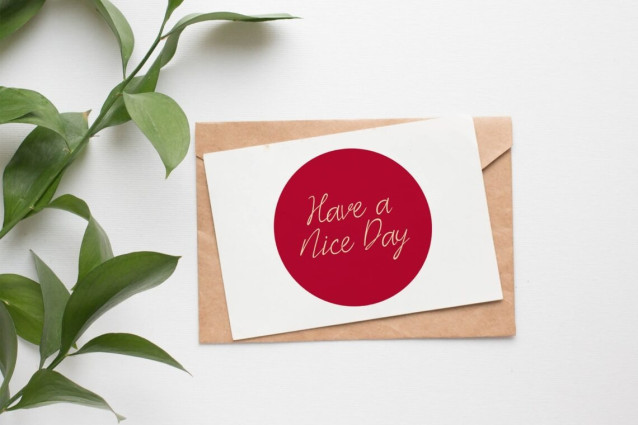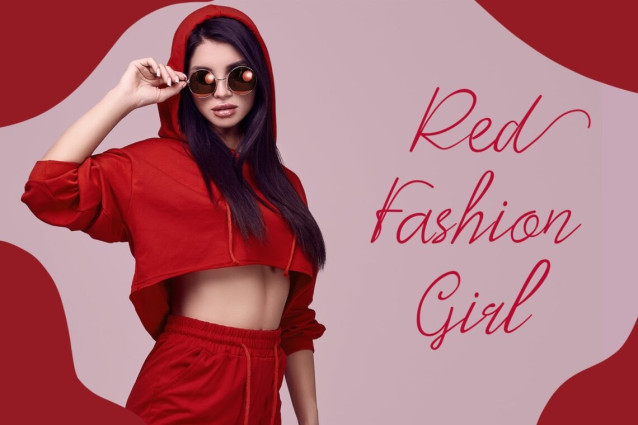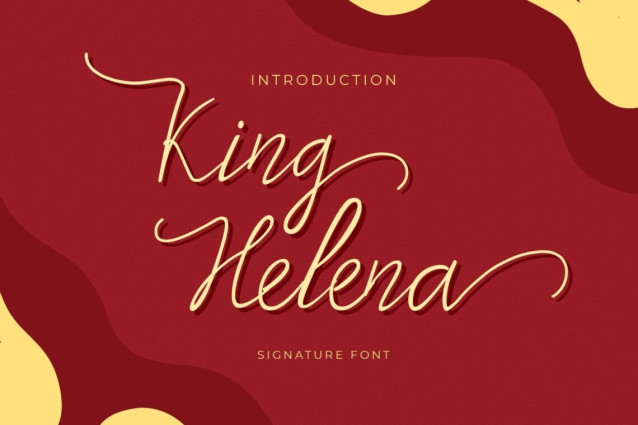
King Helena Script Handwritten Monoline Font is a font that has a signature style which is a type of family script font. each typographic and ligature section in this font represents signature characteristics such as the use of uppercase letters at the beginning of writing, which gives an interesting impression, then a series of continuous small letters that flow with the same rhythm, and end with a long horizontal line and firm, allowing you do titling and swash easily.
This font also represents the characteristics of handwriting, which is a combination of basic fonts with different curves and shapes, so it will look natural and real. It is suitable for crafts, photography, watermarks, fashion, social media posts, advertisements, logos & branding, invitations, product designs, labels, stationery, product packaging, special events, etc.